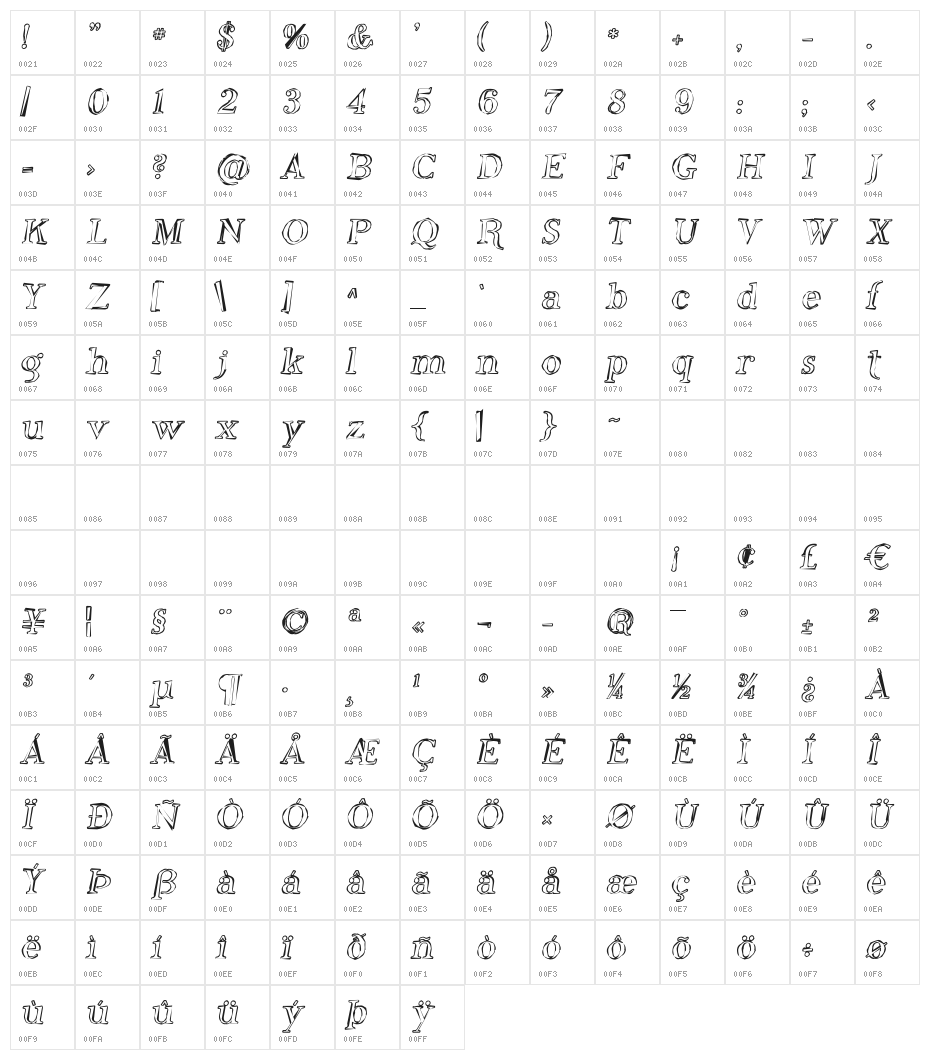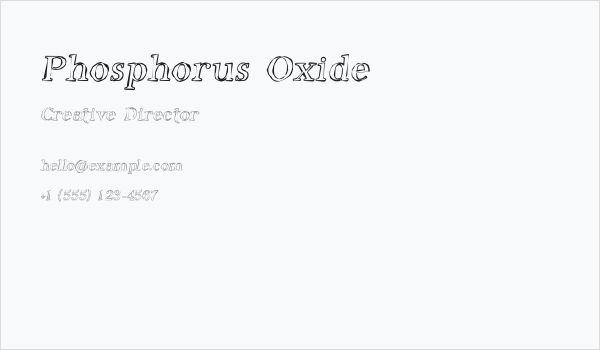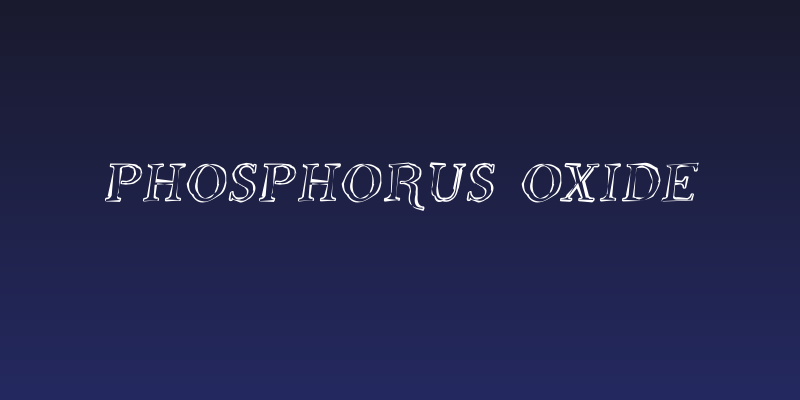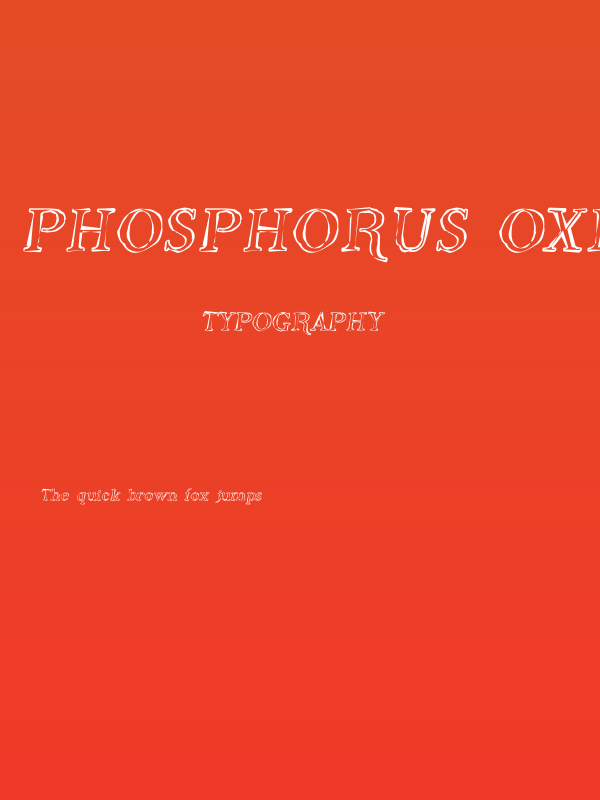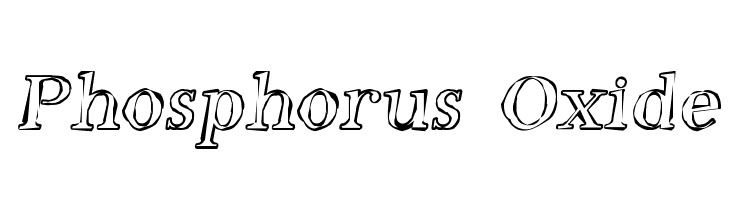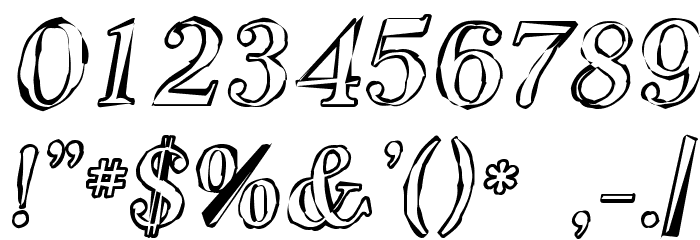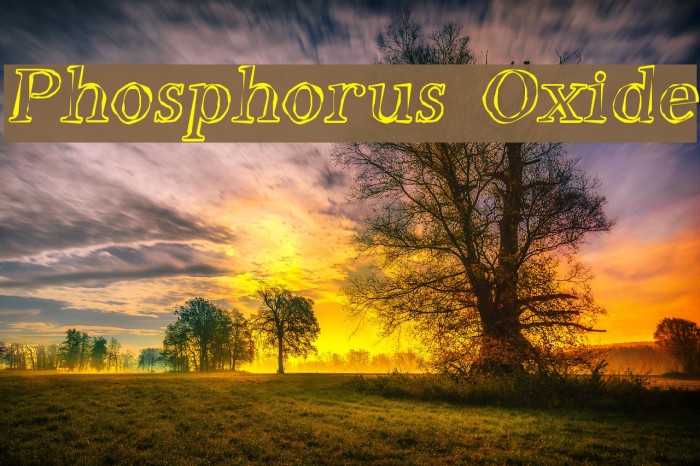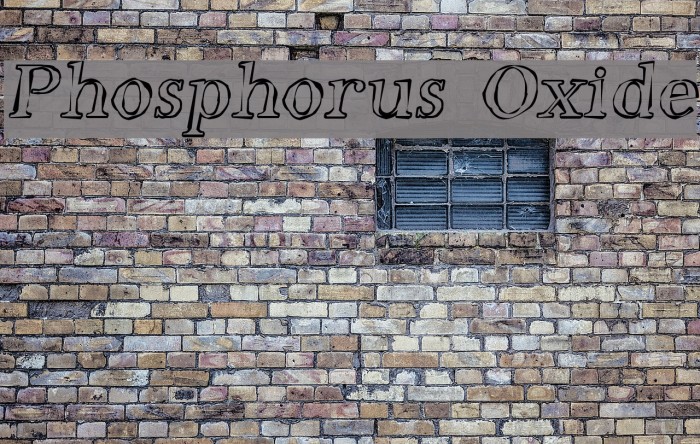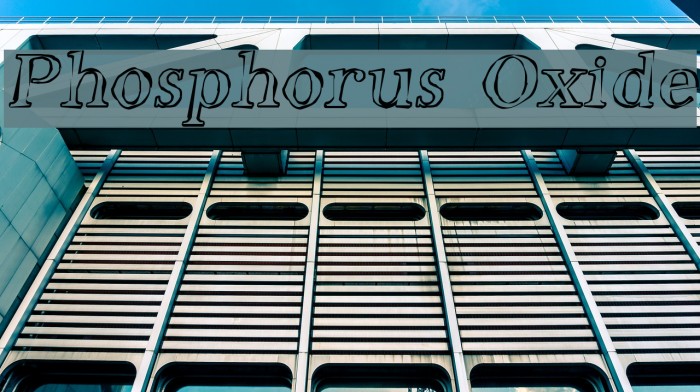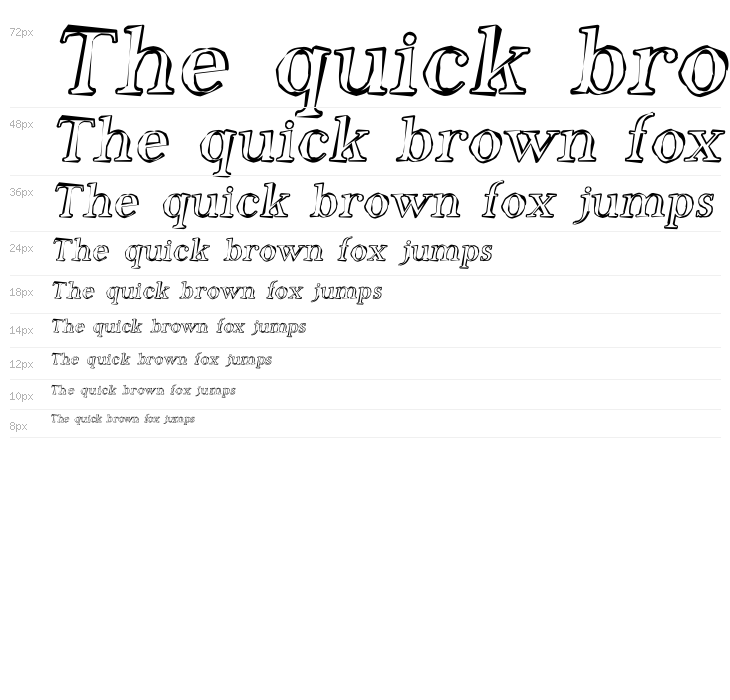
Phosphorus Oxide Font
Phosphorus Oxide Description
This font features a unique and artistic design with a hand-drawn, sketch-like appearance. The characters are outlined with a bold, uneven stroke that gives them a dynamic and textured look. Each letter has a slightly irregular shape, adding to the handcrafted feel. The uppercase letters are bold and prominent, while the lowercase letters maintain a consistent style with a slightly more delicate touch. The numbers and special characters follow the same artistic theme, ensuring a cohesive look across all characters. This font's distinctive style makes it stand out, perfect for creative projects that require a touch of individuality.
| Overall Style | Artistic, Handcrafted |
| Proposed Projects | Ideal for artistic posters, creative branding, unique invitations, and eye-catching headlines. |